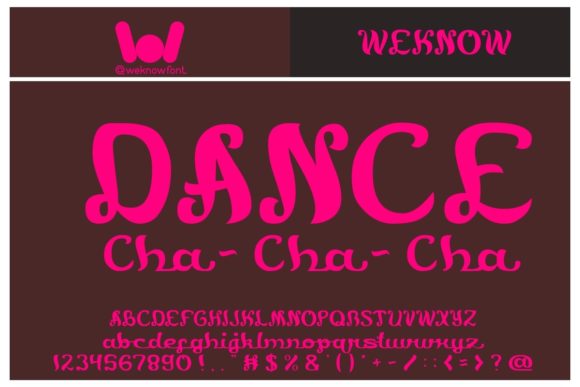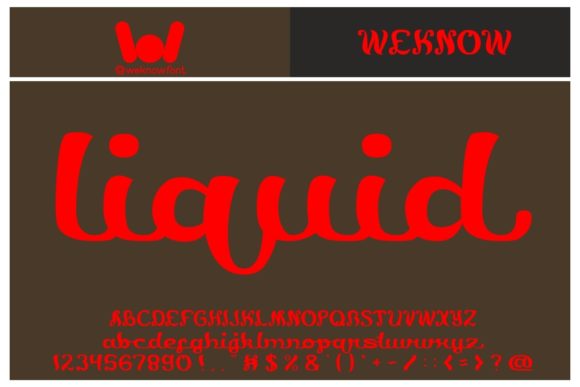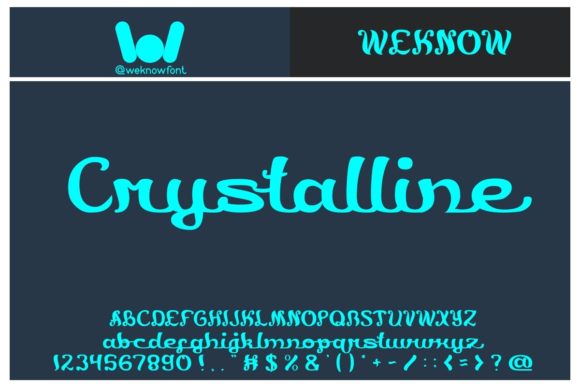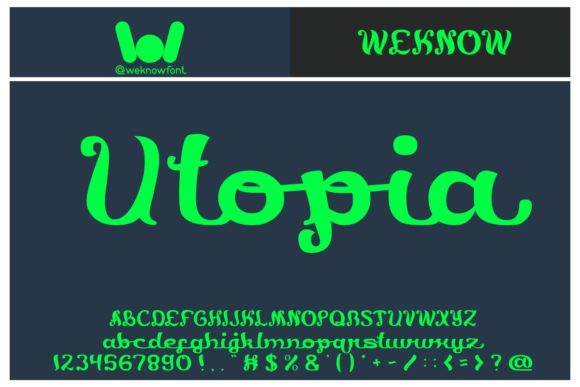
Army of Me Font
About Army of Me Font
Army of Me is a chic and whimsical handwritten font that adds a touch of playfulness and charm to your designs. With its unique style and artistic flair, this font can be a wonderful asset in your font library, capable of enhancing a wide range of creative projects.
The chic and whimsical nature of Army of Me brings a sense of joy and lightheartedness to your designs. It has a hand-drawn quality that adds a personal and organic touch to your text. Whether you’re working on invitations, greeting cards, posters, or social media graphics, Army of Me can instantly uplift your designs and create a memorable visual impact.
The versatility of Army of Me allows it to adapt to various themes and topics. Its playful and energetic vibe makes it suitable for projects related to children, crafts, celebrations, or any design that needs a touch of whimsy. It can also be used in more sophisticated contexts by combining it with other fonts or pairing it with elegant illustrations.
Army of Me is designed to enhance your creativity and provide you with endless possibilities. It encourages you to explore different typographic layouts, experiment with lettering styles, and create unique compositions. Its whimsical nature invites you to infuse your designs with personality and express your individuality.
In summary, Army of Me is a chic and whimsical handwritten font that brings a sense of playfulness and charm to your designs. Its versatility, artistic flair, and user-friendly nature make it a wonderful asset in your font library. Embrace the creativity and joy that Army of Me can bring to your projects and let it enhance your designs with its unique and whimsical style.